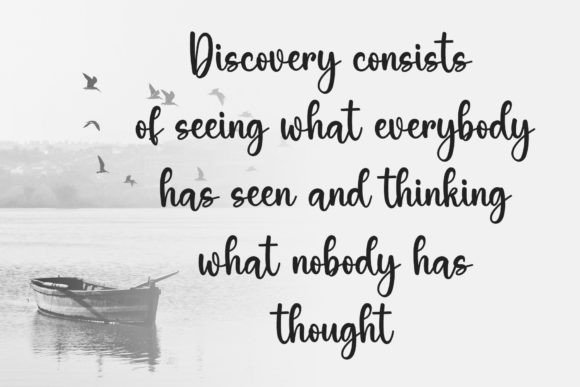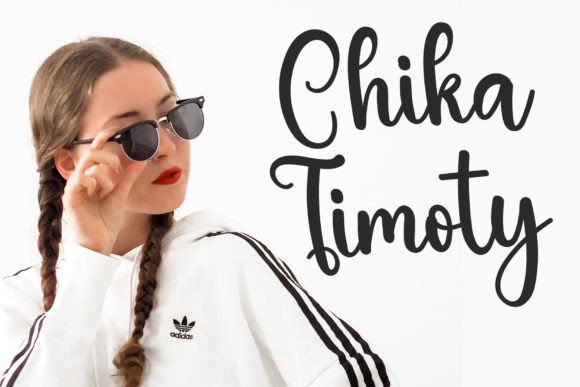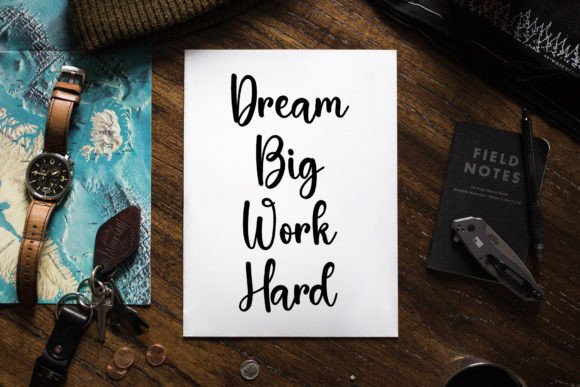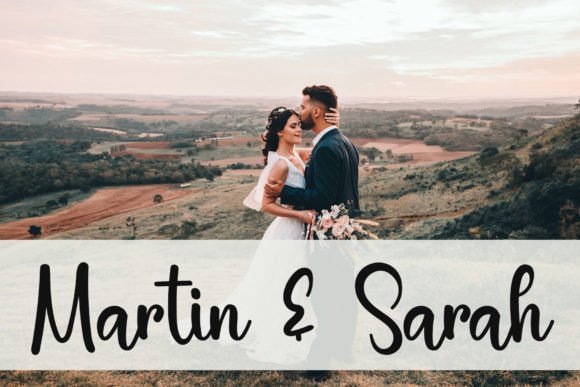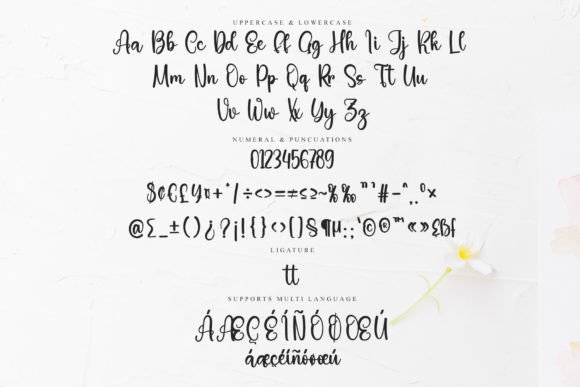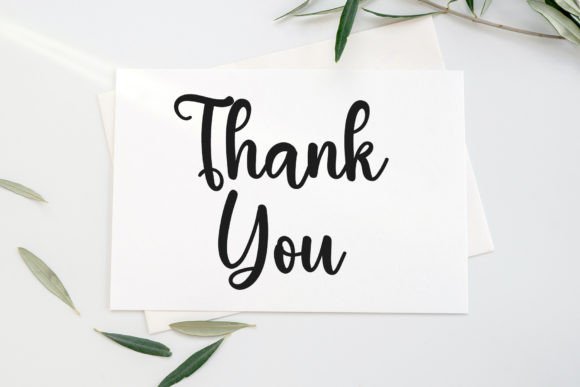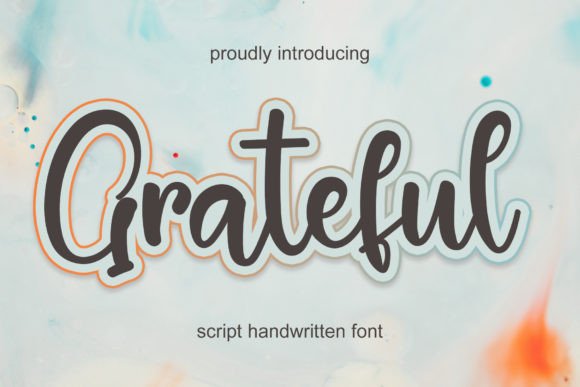
Introducing Grateful Font: Elevate Your Designs with Elegance and Timeless Style
Are you on the hunt for a font that adds a touch of sophistication and whimsy to your projects? Look no further than the Grateful Font, a delicate, elegant, and flowing handwritten font designed to capture hearts with its distinct and timeless style. Perfect for designers, crafters, and anyone looking to infuse their work with a personal touch, Grateful Font is about to become your new favorite companion in the world of typography.
The Beauty of Grateful Font
Grateful Font boasts an incredibly unique and classic aesthetic that sets it apart from the myriad of fonts available today. Its elegant, handcrafted appearance lends a sense of warmth and personality to any project, making it an ideal choice for a wide range of applications, from wedding invitations and branding materials to digital content and craft projects. The font’s flowing lines and delicate curves evoke a sense of grace and sophistication, allowing designers to create spectacular designs that stand out.
One of the standout features of Grateful Font is its PUA (Private Use Area) encoding. This means that accessing the font’s extensive range of glyphs and swashes is incredibly straightforward. PUA encoding allows users to easily access and use the additional characters and swashes without the need for complicated software or technical knowledge. This feature is particularly beneficial for designers who want to experiment with different styles and flourishes, ensuring their projects have a unique and personalized touch.
The versatility of Grateful Font makes it suitable for an array of projects. Whether you’re working on:
- Wedding and Event Planning: Create beautiful invitations, save-the-dates, and wedding programs that set the tone for your special day.
- Branding and Marketing: Elevate your brand’s visual identity with elegant logos, packaging, and promotional materials.
- Digital Content: Enhance your blog posts, social media graphics, and email newsletters with a touch of elegance.
- Crafting and DIY Projects: Add a personal touch to your handmade crafts, such as journals, planners, and art pieces.
Grateful Font’s adaptability and charm make it an excellent addition to any creative toolkit.
Why Choose Grateful Font?
In a digital world where fonts are plentiful, Grateful Font offers several advantages that make it a top choice for designers and crafters:
- Unique Style: Stand out with a font that has a distinct, timeless appeal.
- Ease of Use: PUA encoding ensures you can easily access and use all glyphs and swashes.
- Versatility: Suitable for a wide range of projects, from digital content to print materials.
- Elegance: Adds a touch of sophistication and whimsy to any project.
Grateful Font is more than just a typeface; it’s a design element that can transform your projects with its delicate, elegant, and flowing style. Its PUA encoding makes it user-friendly, allowing for endless creativity and experimentation. Whether you’re a professional designer or a crafting enthusiast, Grateful Font offers the perfect blend of beauty, functionality, and charm. Discover the difference it can make in your designs and let your creativity flourish with Grateful Font.